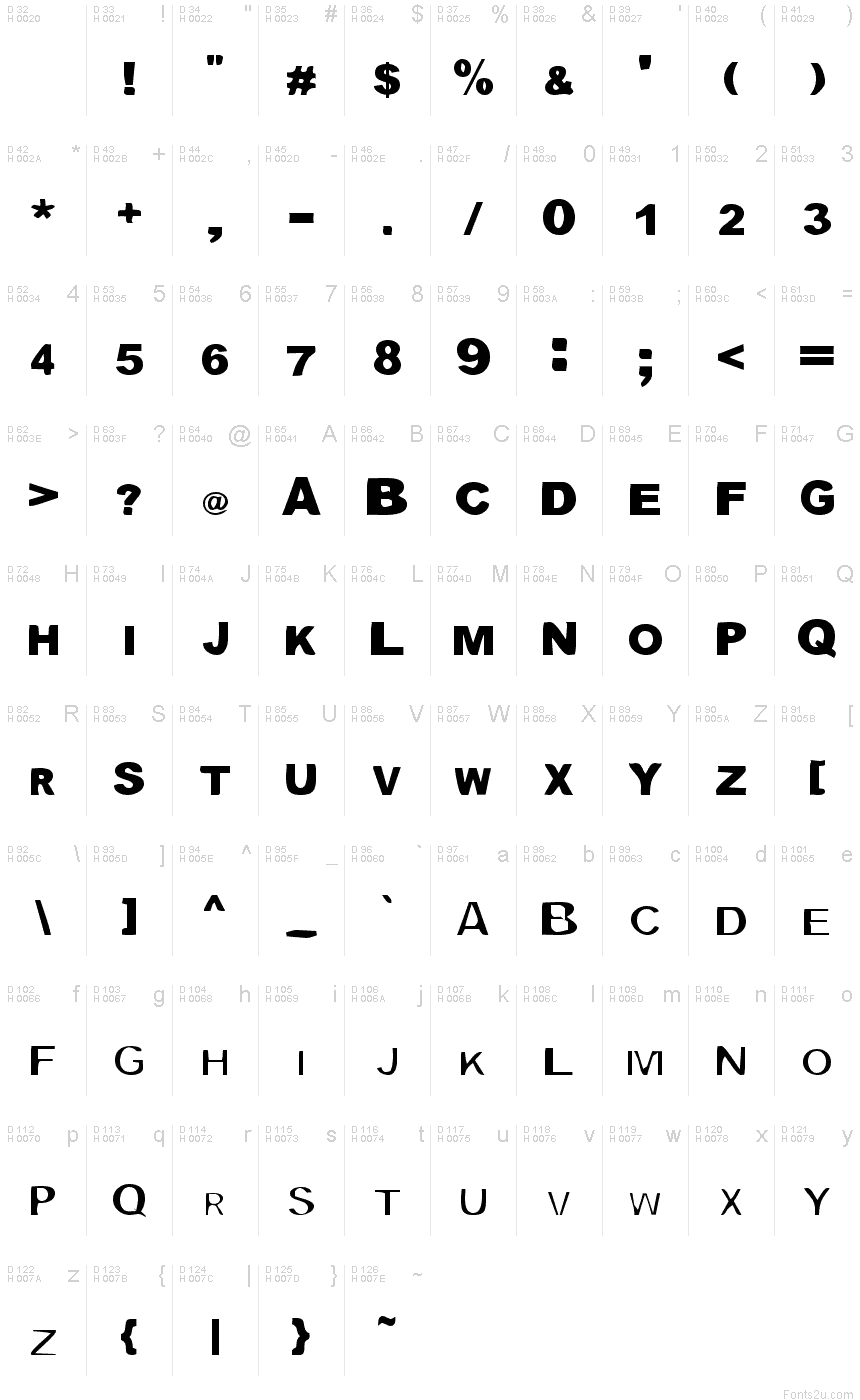
Blockquote
Blockquote font is a free decorative display typeface. Its personality comes from the clash between that thick, inky “B” and the slimmer, bouncier letters that follow, as if a bold headline suddenly breaks into a quick aside. The shapes feel hand-cut and slightly irregular, with soft corners and shifting weight that give words a spoken, almost cartoonish energy rather than a stiff, digital feel.
Using Blockquote, short phrases snap into focus-great for posters, zines, comic titles, flyers, retro web graphics, and bold social posts that need a shout rather than a whisper. This free font shines at larger sizes where its chunky openings and lighter follow-through can really play. Try pairing Blockquote for headlines with a simple sans serif body typeface at smaller sizes to keep everything legible while the title does the talking.